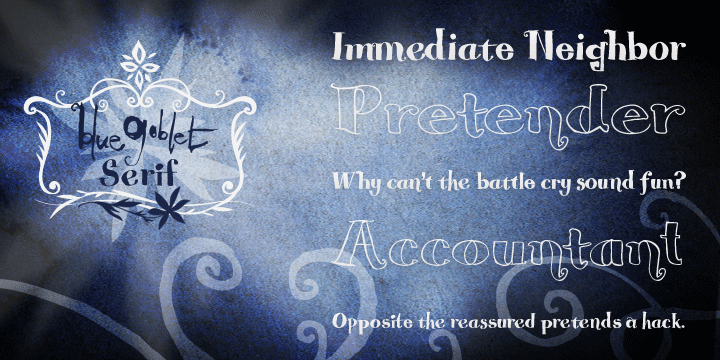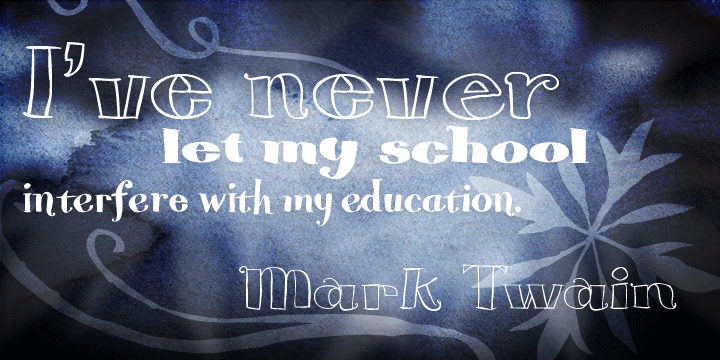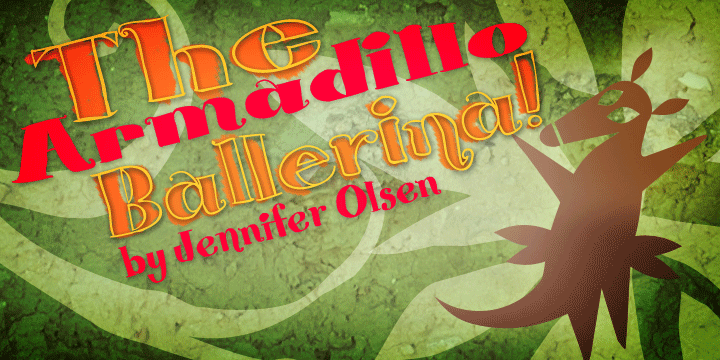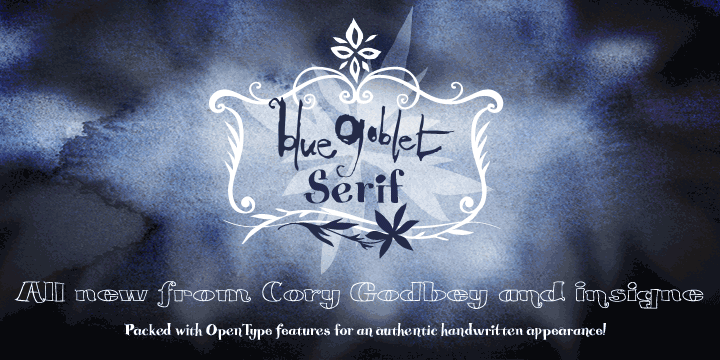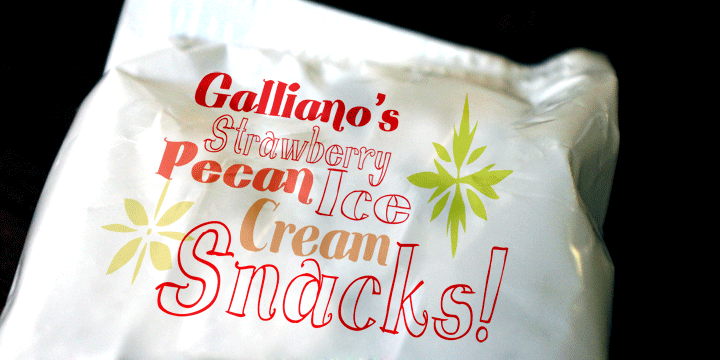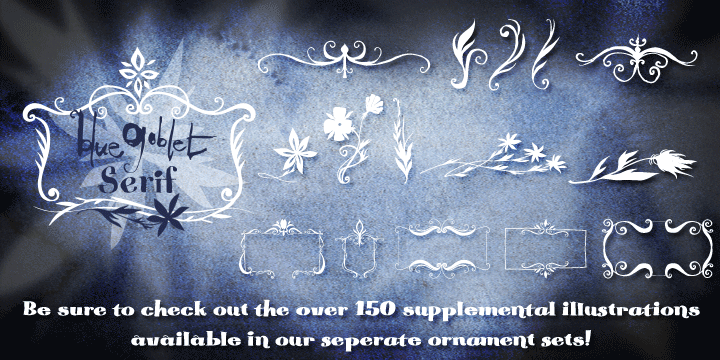
Blue Goblet Serif is a hand display font family. This typeface has eight styles and was published by Insigne Design.
Blue Goblet is a series of fonts and ornaments by Cory Godbey and Jeremy Dooley. This best selling series has now been extended to include a new member, Blue Goblet Serif. Blue Goblet Serif comes with a variety of weights and also an outline version. Blue Goblet is hand-lettered by the artist, Cory Godbey, and is organic, spontaneous and exuberant. Characters bounce and dance above and below the baseline and x-height, making this a whimsical and fun script.
Not only is Blue Goblet Serif a excellent choice, it also is a member of a wide family of different fonts. You can use it side by side with the original Blue Goblet, and there are a wide range of ornaments available, totaling over 350 illustrations! These illustrations include frames, florals and other text ornaments that can be inserted into your text and resized at will. This makes the Blue Goblet series a great pick when you want a type system that works very well together for a very unique and consistent look. The Blue Goblet series continues to grow and be expanded, making it a valuable investment.
Blue Goblet Serif also includes auto replacing ligatures that make it appear that the script was drawn by the artists own hand, just for you! Blue Goblet Serif also includes a wide variety of alternates that can be accessed in any OpenType enabled application. Blue Goblet includes over 150 OpenType glyphs, and is loaded with features including an even more unique alternate alphabet. Included are swash alternates, style sets, old style figures and small caps. Please see the informative PDF brochure to see these features in action. OpenType enabled applications such as the Adobe suite or Quark can take full advantage of the automatic replacing ligatures and alternates. This family also includes the glyphs to support a wide range of languages.
Blue Goblet Serif is great choice for display and short blocks of display text, children’s books, packaging, or other unique applications. Fill in the counter spaces with color for a unique look, or alternate the different weights. Use Blue Goblet whenever you want to inject a sense of fun and whimsy to your designs. Give the Blue Goblet series a try today!